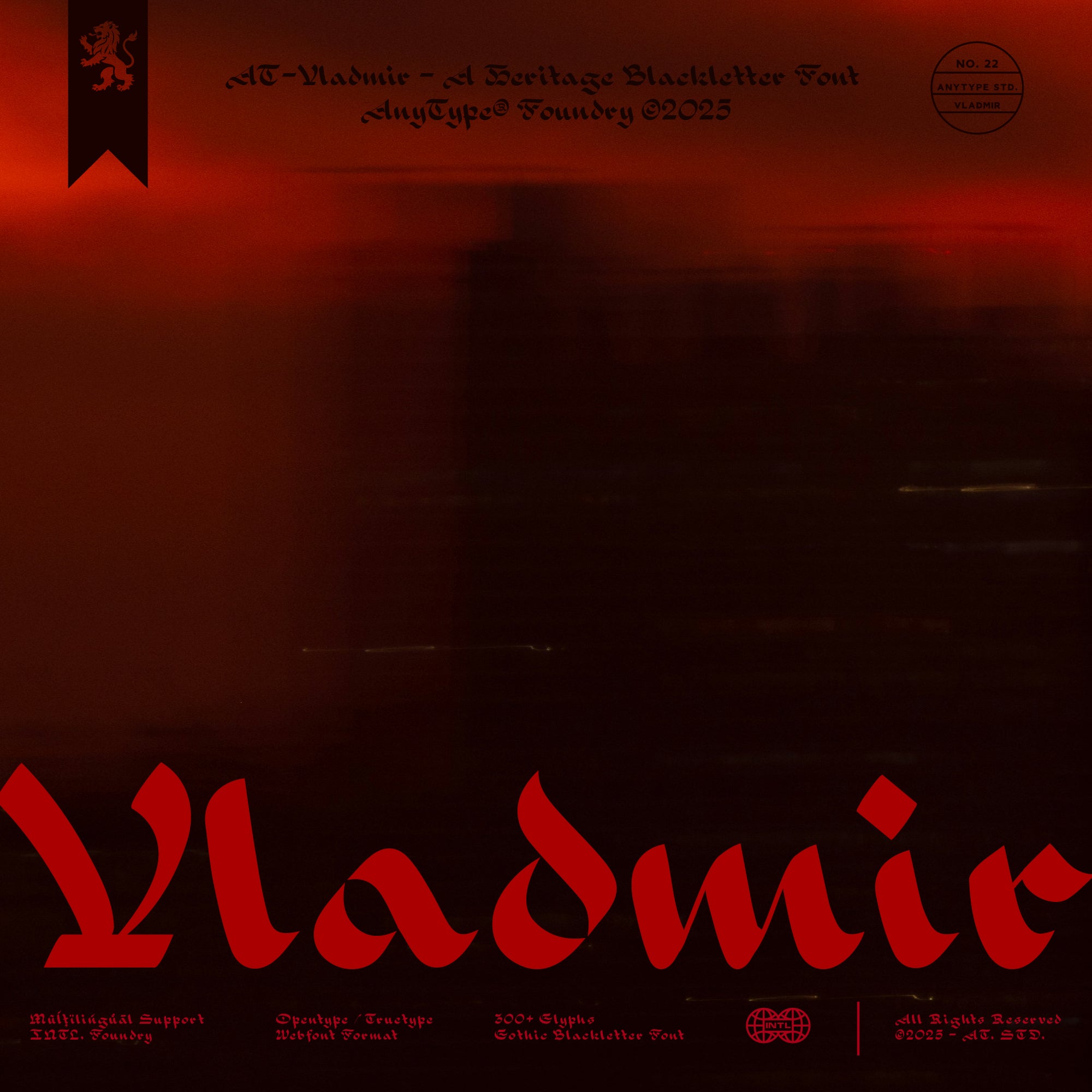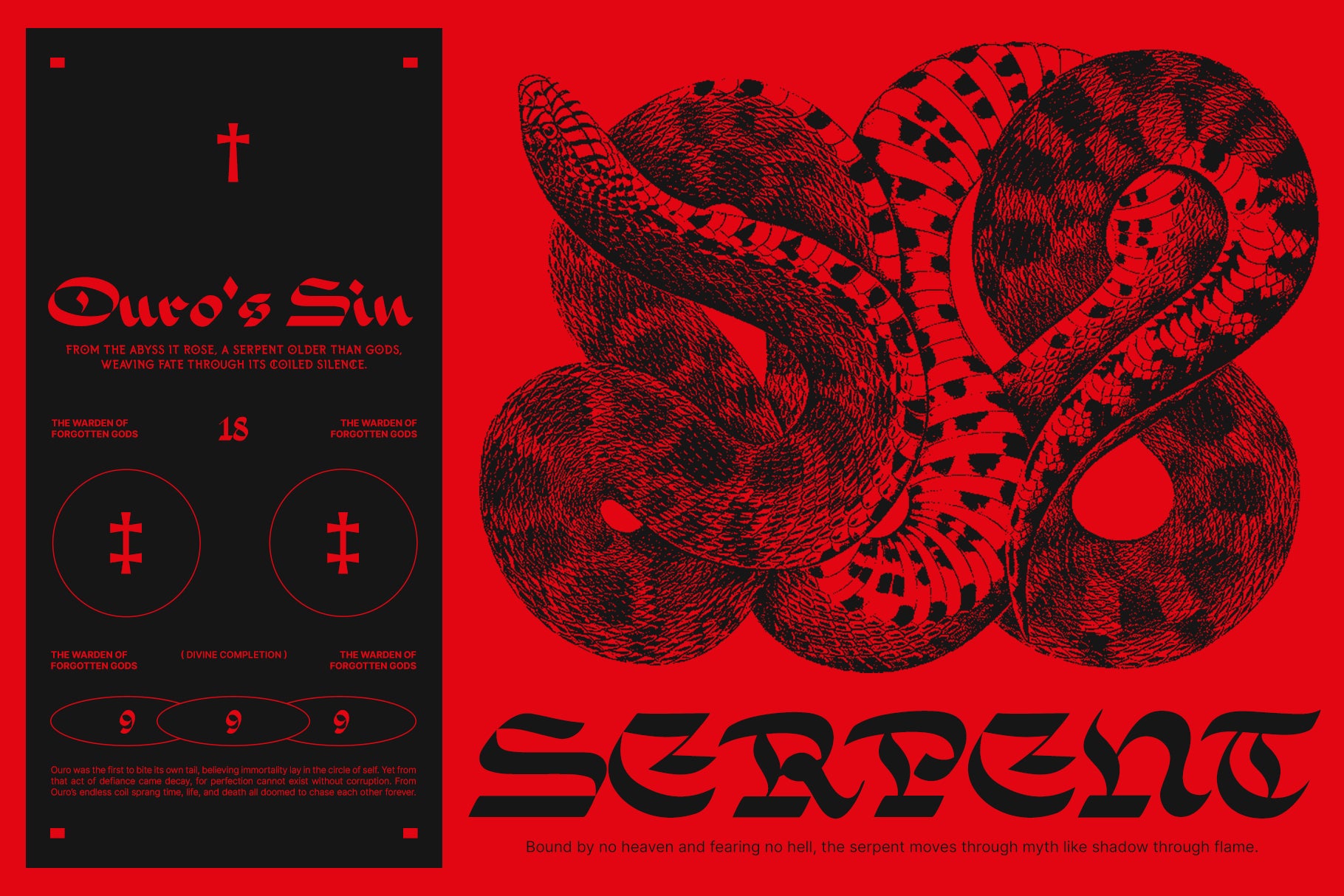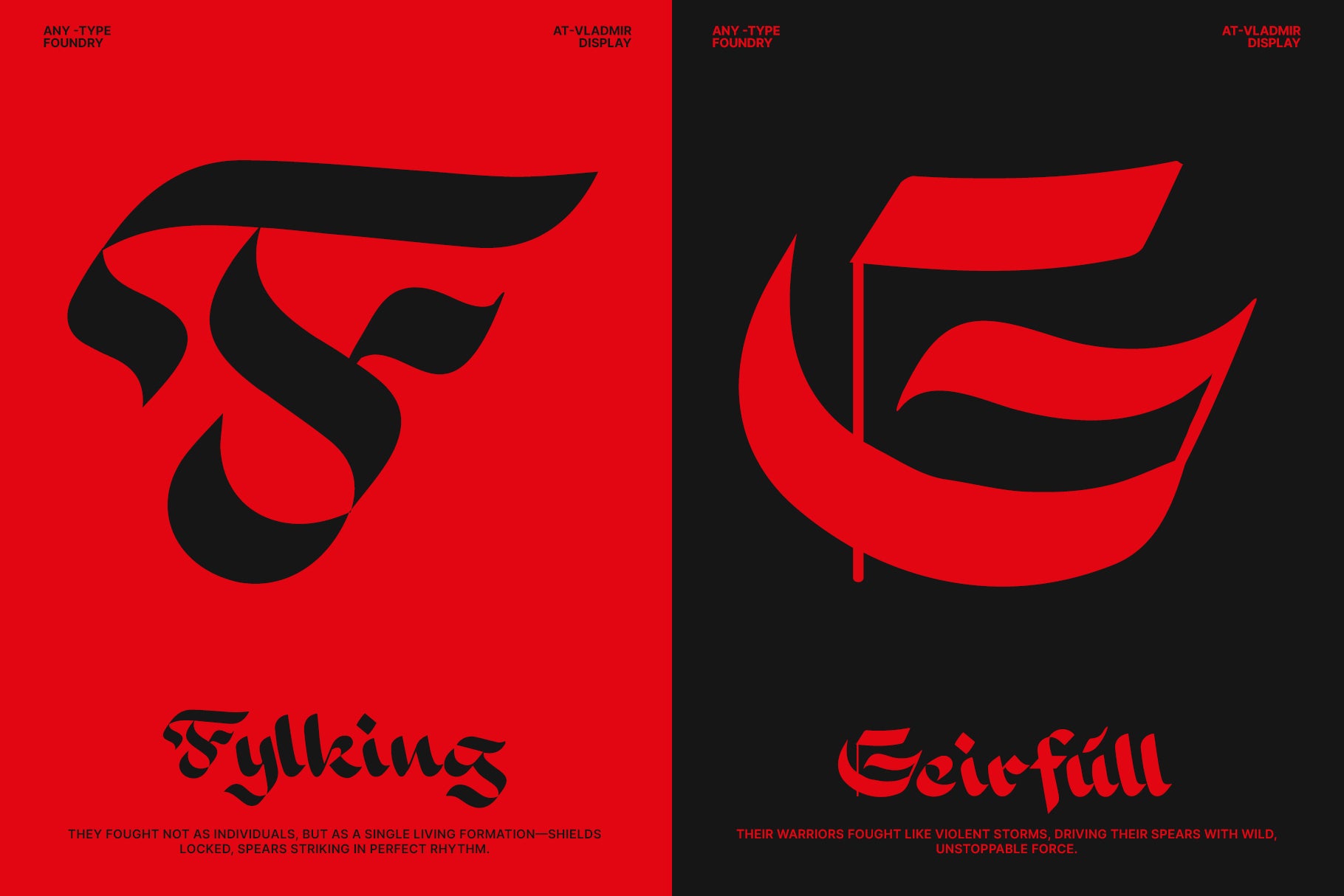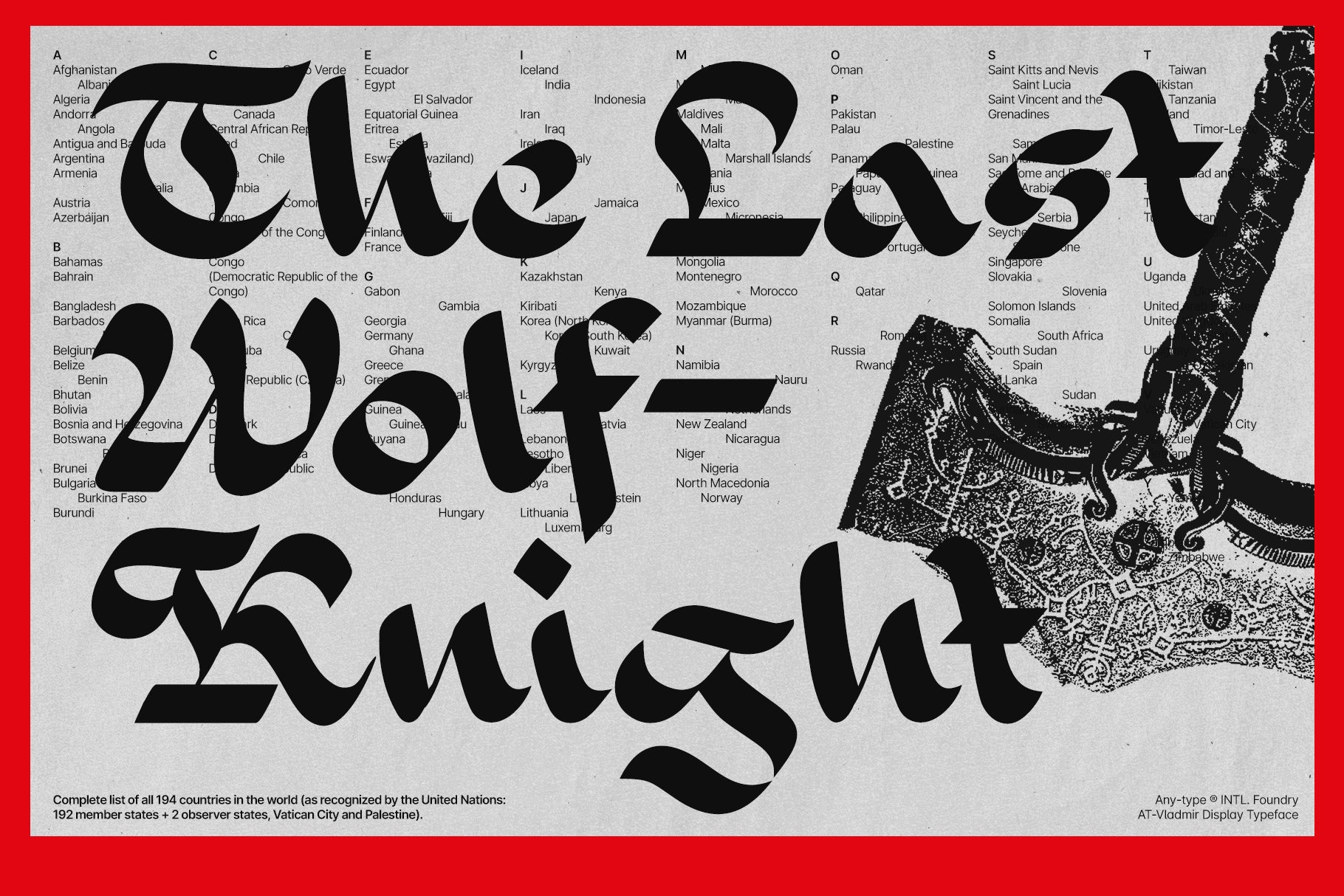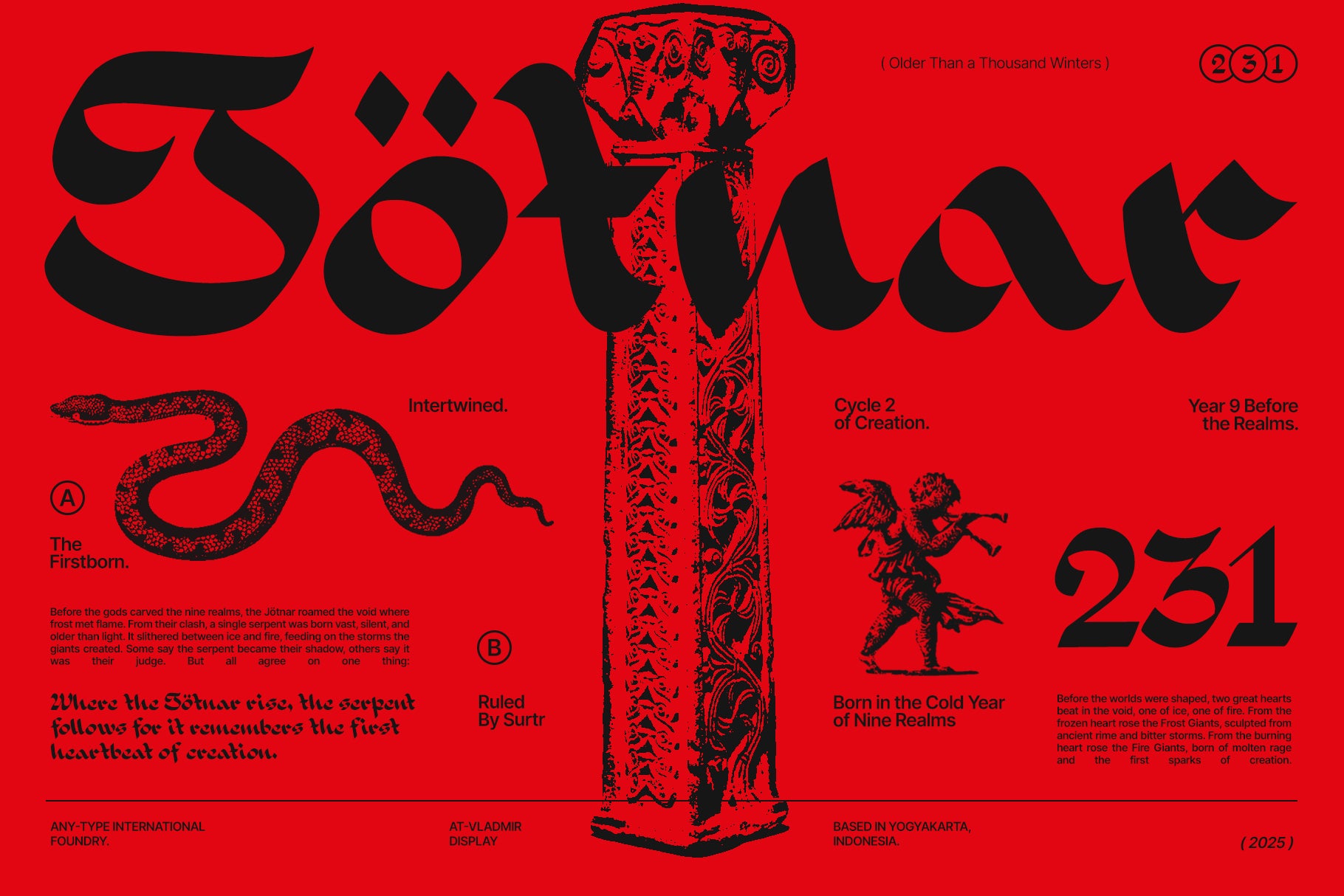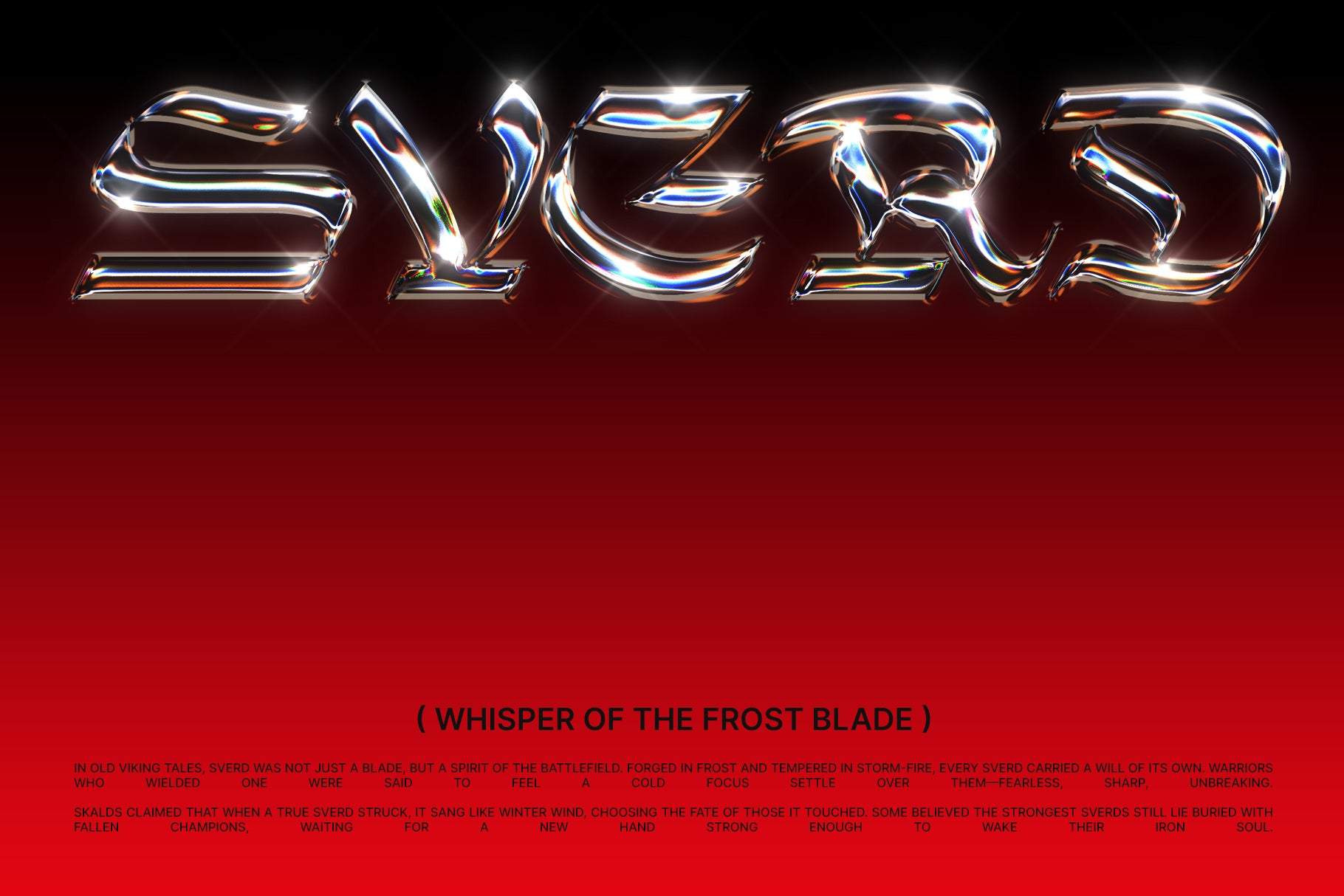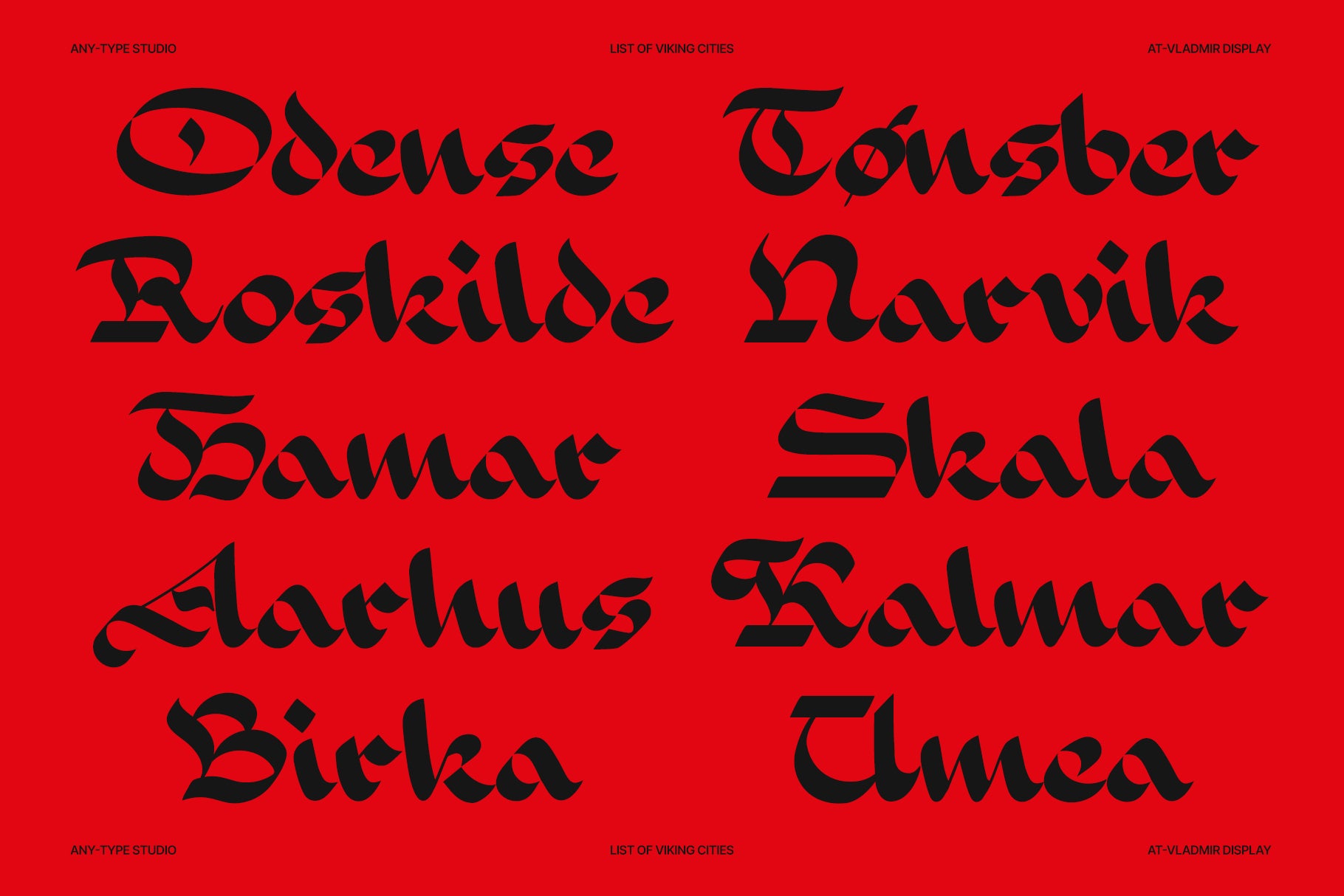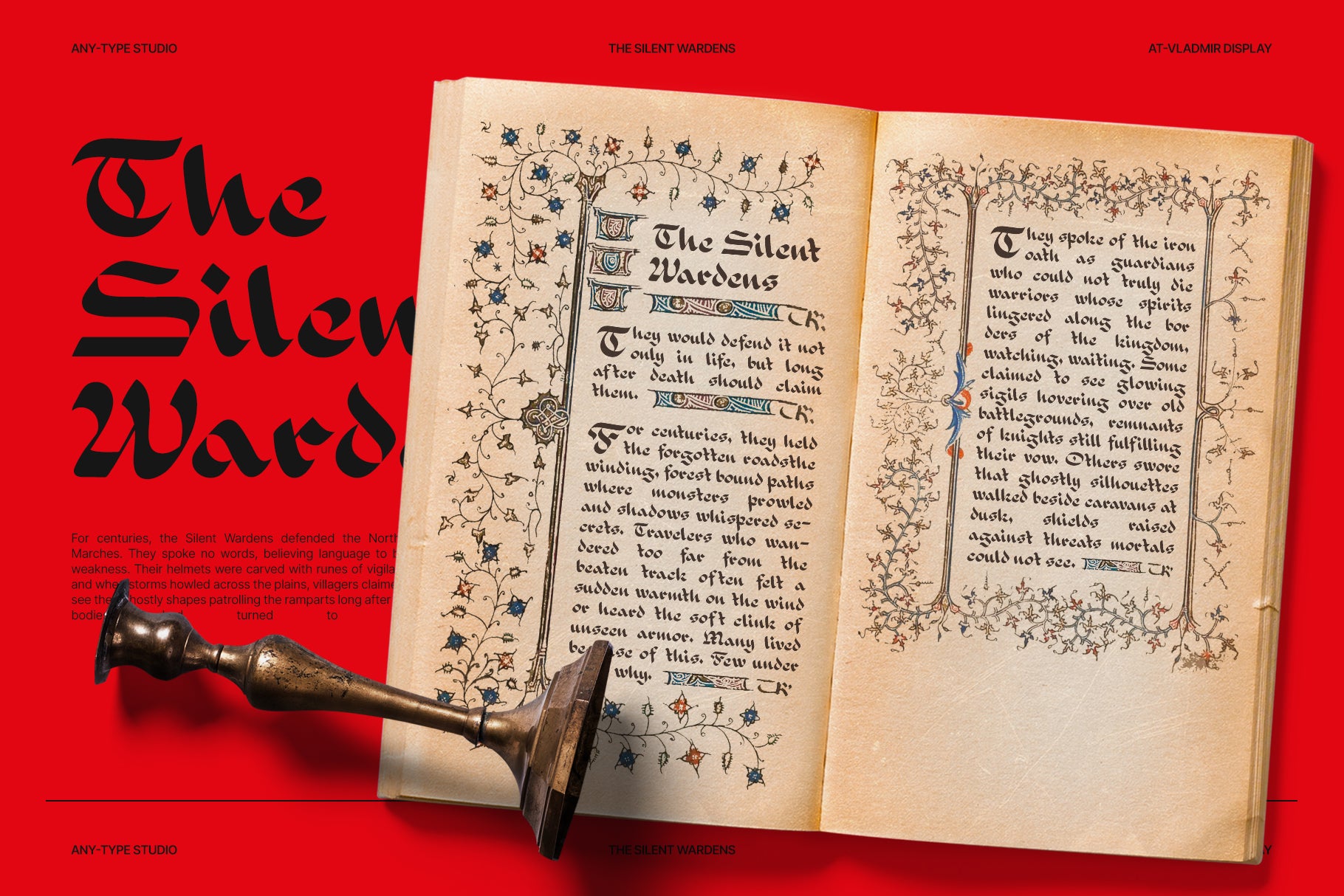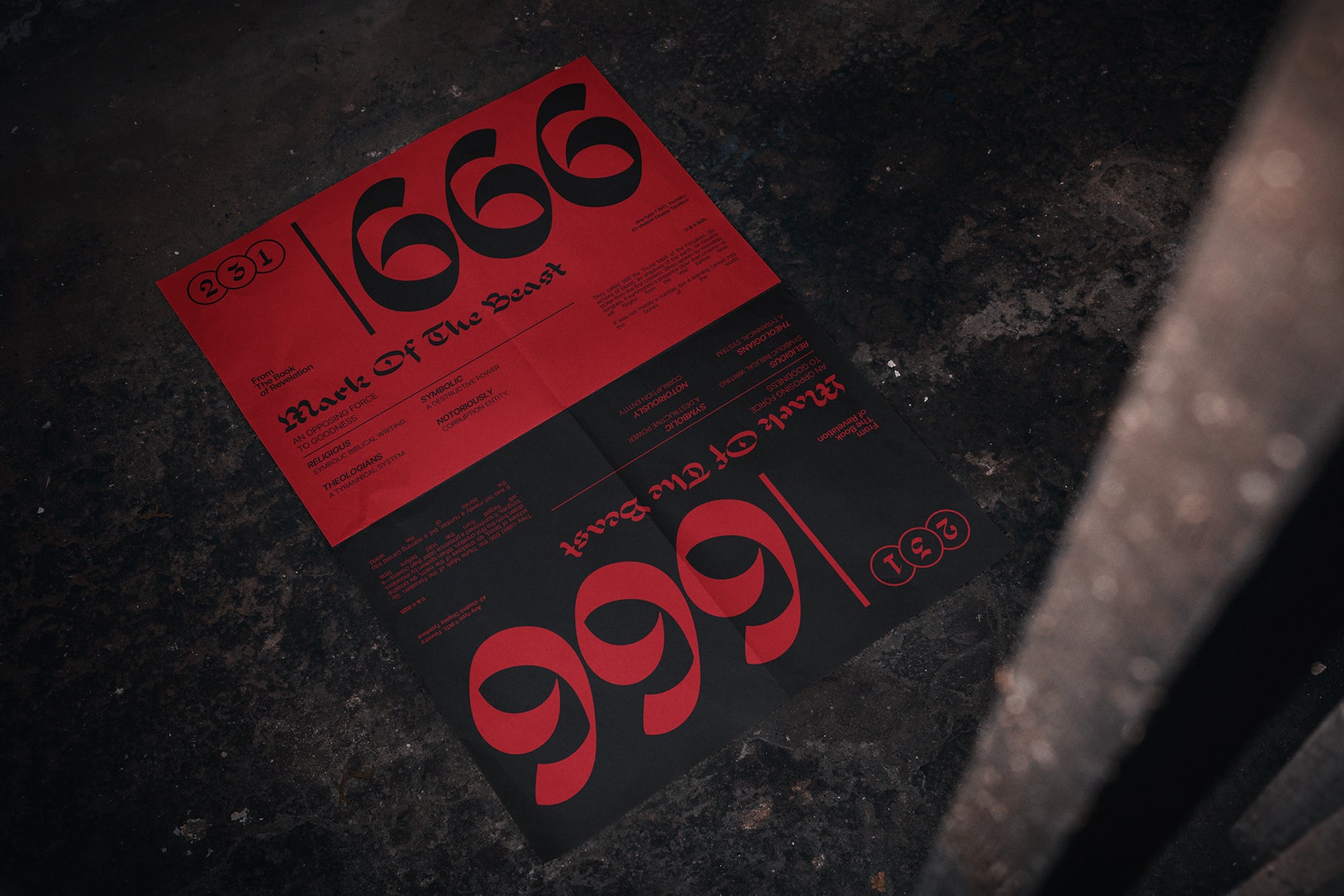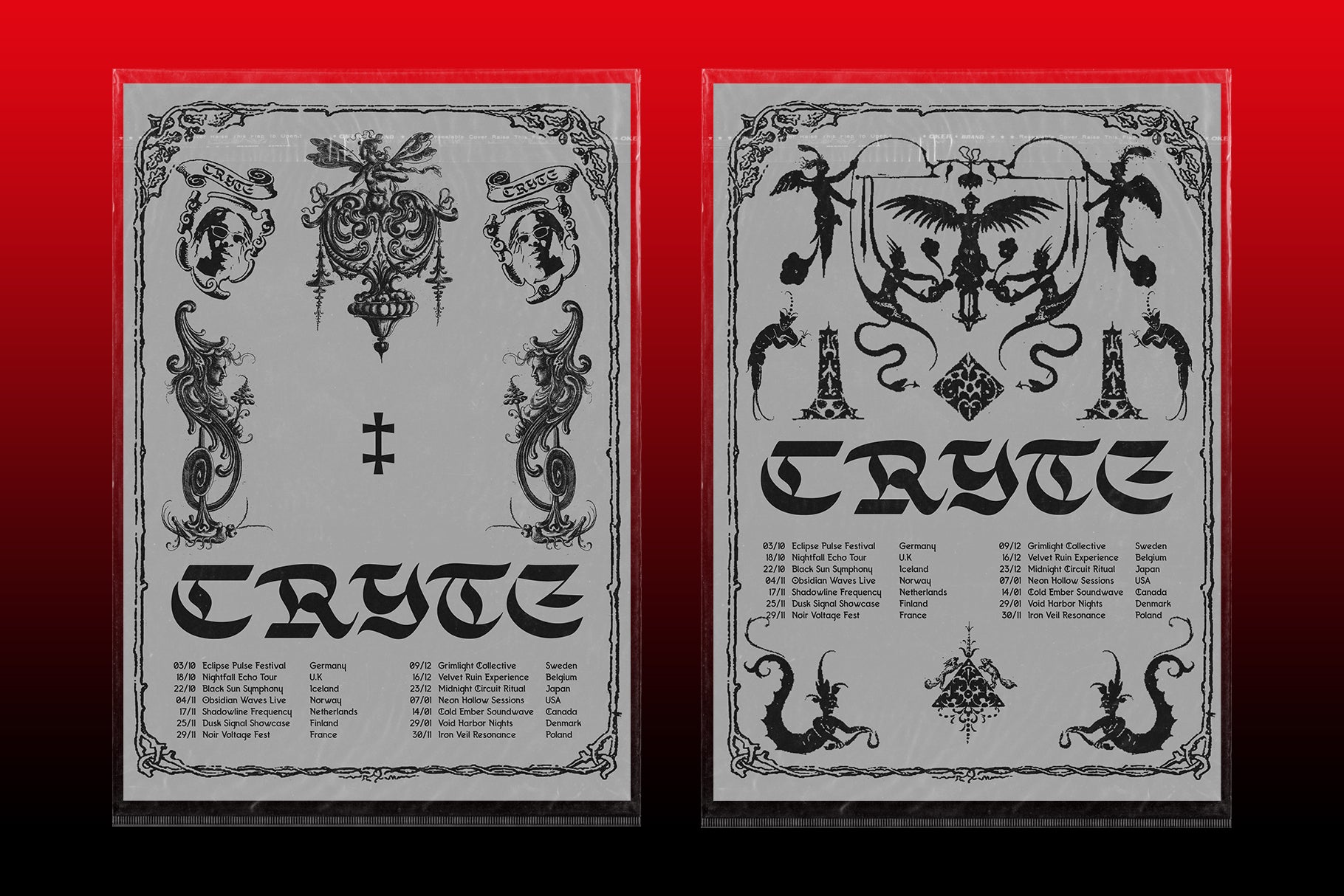
AT Vladmir - Medieval Blackletter Font
AT Vladmir is a bold Blackletter Heritage Font inspired by medieval scripts and gothic calligraphy, featuring over 300 glyphs and extensive multilingual support. This typeface includes refined OpenType features, providing a handcrafted feel while maintaining readability, making it suitable for various design applications.